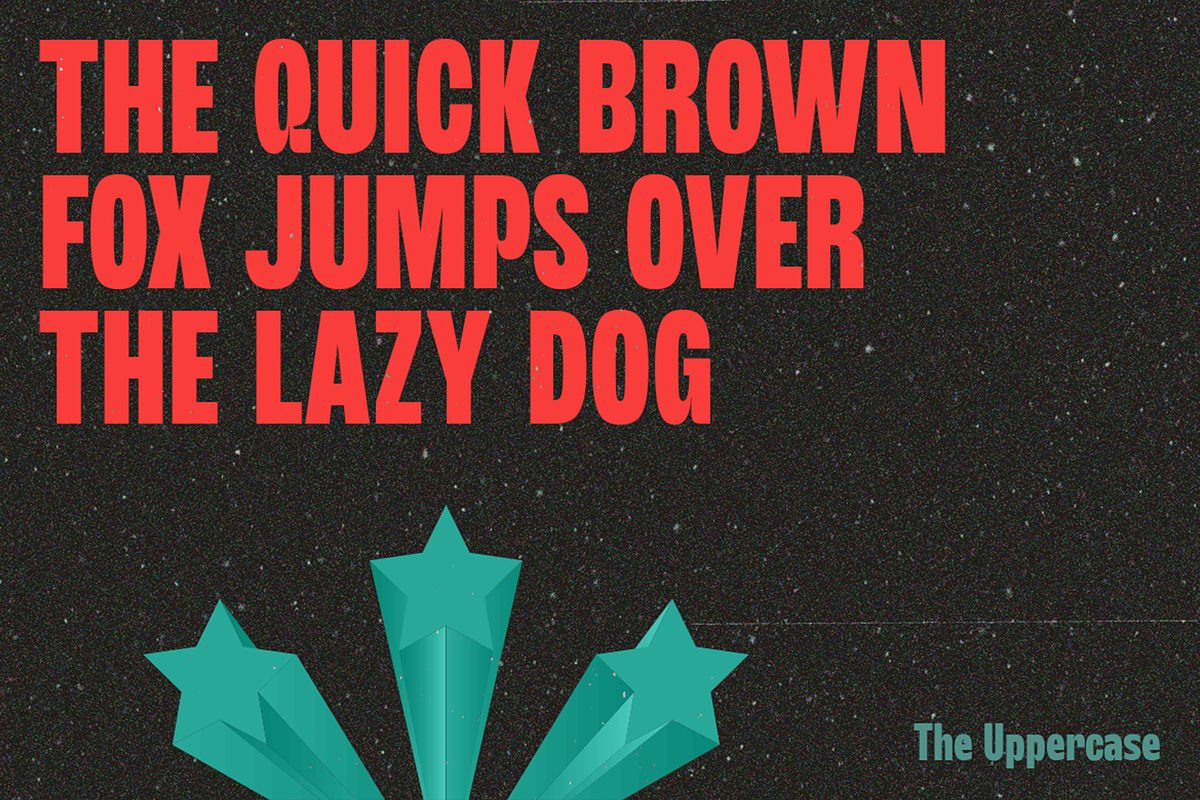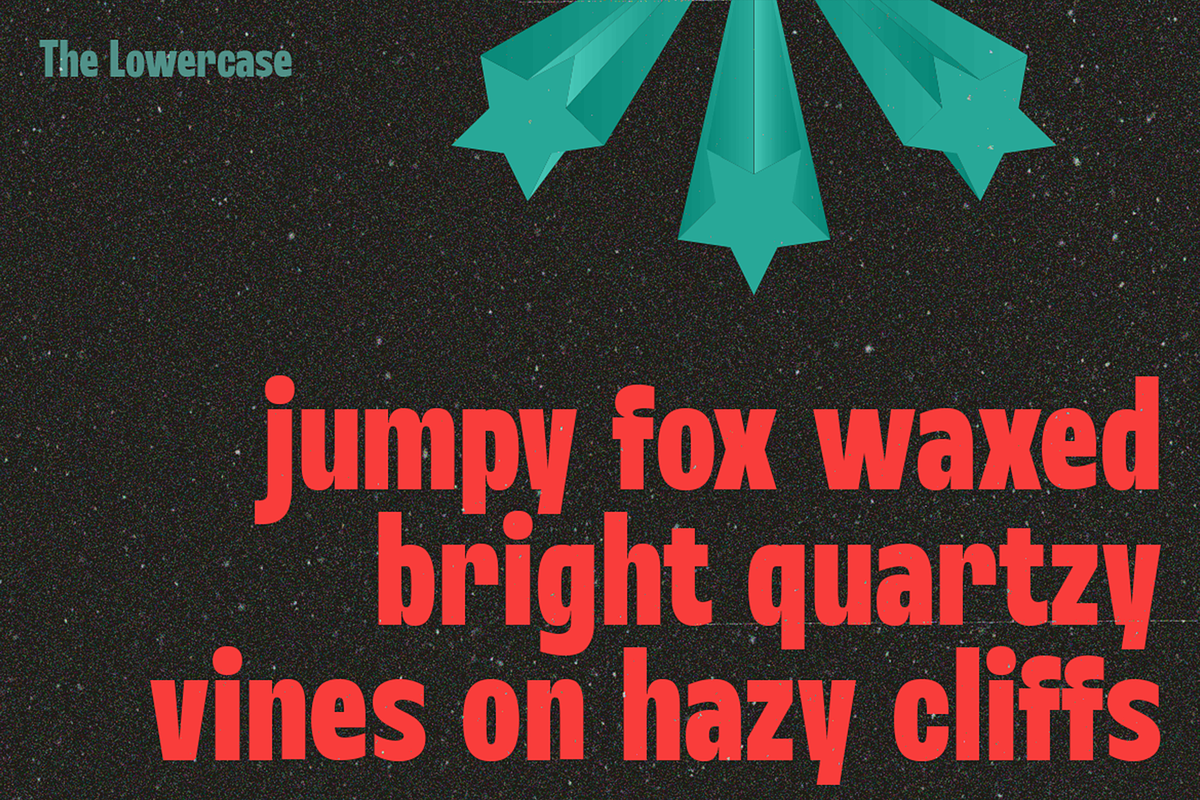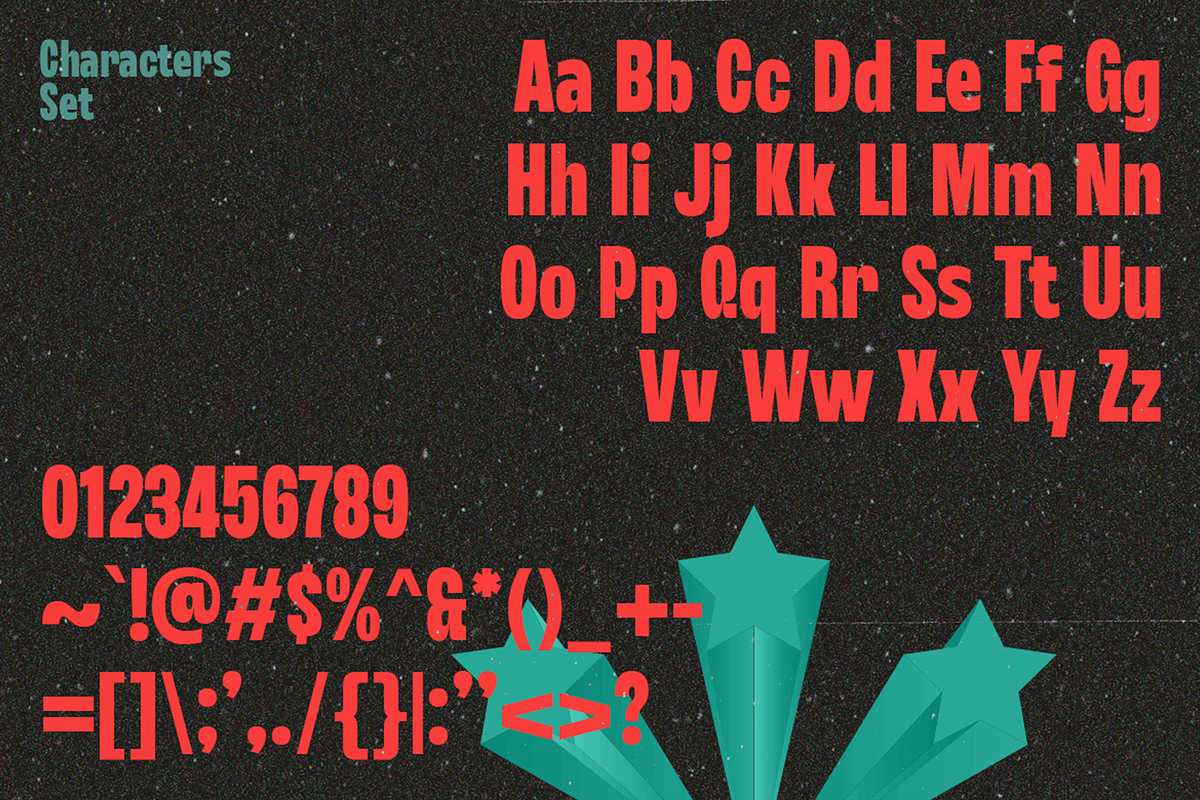
Spingels - Bold Condensed Fun Fonts
Spingels Font: Bold, Condensed, and Packed with Personality!
Looking for a font that’s bold, confident, and effortlessly cool? Meet Spingels – the perfect blend of bold condensed style and casual vibes. Designed with subtle inktraps for a modern edge, Spingels strikes the ideal balance between playful and professional.
Whether you're crafting a standout logo, eye-catching posters, or memorable branding, Spingels delivers versatility and impact. Its bold yet approachable design makes it a perfect fit for:
- Logos & Branding – Make your brand unforgettable.
- Posters & Displays – Command attention with every word.
- Headlines & Titles – Add a touch of fun and flair.
- Packaging & Merchandise – Elevate your design game.